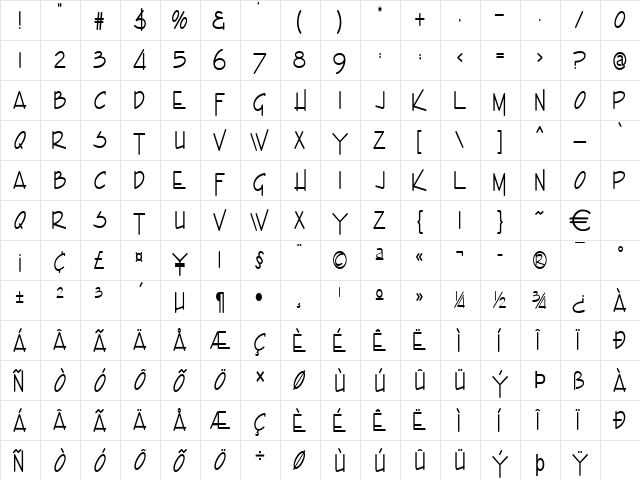
EnviewThin Normal Font Preview
EnviewThin Normal
Design Context for EnviewThin Typeface
EnviewThin takes a measured approach to typography — its balanced proportions and neutral character make it a reliable workhorse for both digital and print work. Its slender proportions lend an understated elegance to any composition.